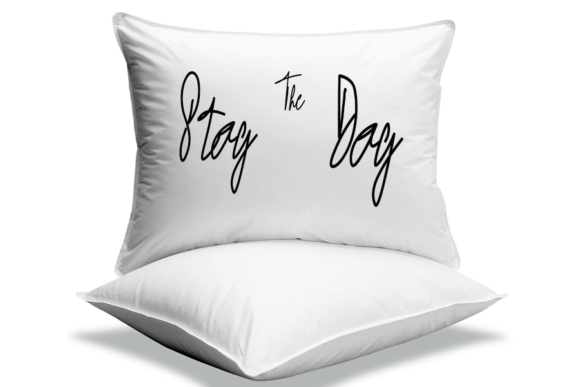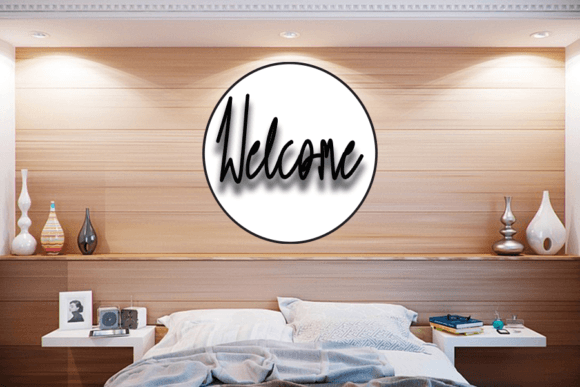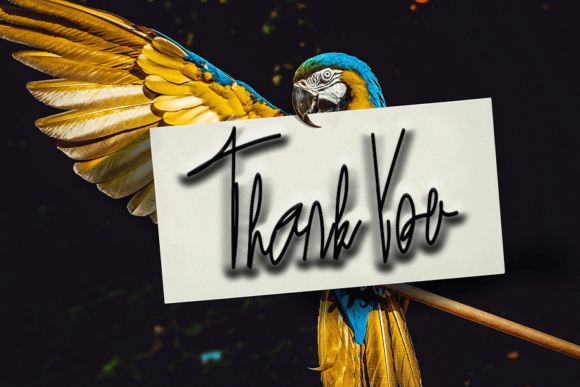
Betterday Font: The Ultimate Choice for Creative Projects
Are you a designer, crafter, or DIY enthusiast looking for a font that can add a personal touch to your creative projects? Look no further than Betterday Font! This adorable handwritten font is designed to bring a friendly and approachable feel to your designs, making it perfect for a wide range of applications.
What Makes Betterday Font So Special?
Betterday Font is a cute and casual handwritten font that boasts an incredibly friendly feel. Its gorgeous swashes and ligatures make this script incredibly versatile, allowing you to use it for various creative projects. Whether you’re looking for fonts for Instagram, calligraphy scripts for DIY projects, or a font for your next design venture, Betterday Font is the perfect choice.
Key Features of Betterday Font
- Cute and Casual Handwritten Style: Betterday Font features a beautiful, handwritten style that’s perfect for adding a personal touch to your designs.
- Gorgeous Swashes and Ligatures: The font includes stunning swashes and ligatures that make it incredibly versatile and perfect for creative projects.
- Friendly Feel: The font has an incredibly friendly feel that’s sure to make your designs stand out.
- Perfect for Instagram and DIY Projects: Betterday Font is ideal for Instagram posts, calligraphy scripts, and DIY projects.
Uses of Betterday Font
Betterday Font is a versatile font that can be used for a wide range of creative projects. Here are some ideas to get you started:
- Instagram Posts: Add a personal touch to your Instagram posts with Betterday Font. Use it to create stunning quotes, captions, or stories.
- DIY Projects: Use Betterday Font to create beautiful calligraphy scripts for your DIY projects, such as handmade cards, gift tags, or journals.
- Design Projects: Betterday Font is perfect for designers looking to add a personal touch to their designs. Use it for branding, packaging, or advertising projects.
- Crafting: Betterday Font is a great choice for crafters who want to add a personal touch to their projects. Use it to create beautiful handmade crafts, such as knitting patterns or sewing projects.
Why Choose Betterday Font?
There are many fonts available, but Betterday Font stands out from the rest. Here are some reasons why you should choose Betterday Font for your next creative project:
- Unique and Creative: Betterday Font is a unique and creative font that’s sure to make your designs stand out.
- Easy to Read: The font is easy to read, making it perfect for use in a variety of applications.
- Highly Versatile: Betterday Font is highly versatile and can be used for a wide range of creative projects.
- Friendly and Approachable: The font has a friendly and approachable feel that’s sure to resonate with your audience.
Tips for Using Betterday Font
Here are some tips for using Betterday Font in your creative projects:
- Experiment with Different Sizes: Experiment with different font sizes to find the perfect size for your project.
- Use Swashes and Ligatures: Use the gorgeous swashes and ligatures to add a personal touch to your designs.
- Pair with Other Fonts: Pair Betterday Font with other fonts to create a unique and creative look.
- Have Fun: Most importantly, have fun with Betterday Font! Experiment with different designs and ideas to create something truly unique.
| Font Name | Betterday Font |
| Author | Millea Creative |
Betterday Font is a beautiful and versatile font that’s perfect for designers, crafters, and DIY enthusiasts. With its cute and casual handwritten style, gorgeous swashes and ligatures, and friendly feel, Betterday Font is sure to make your designs stand out. Whether you’re looking for fonts for Instagram, calligraphy scripts for DIY projects, or a font for your next design venture, Betterday Font is the perfect choice. So why wait? Download Betterday Font today and turn your creative ideas into true pieces of art!